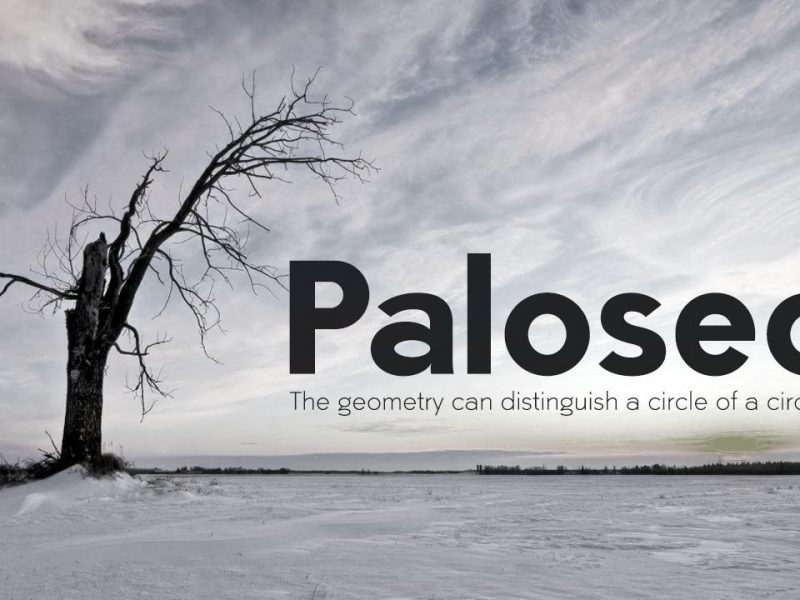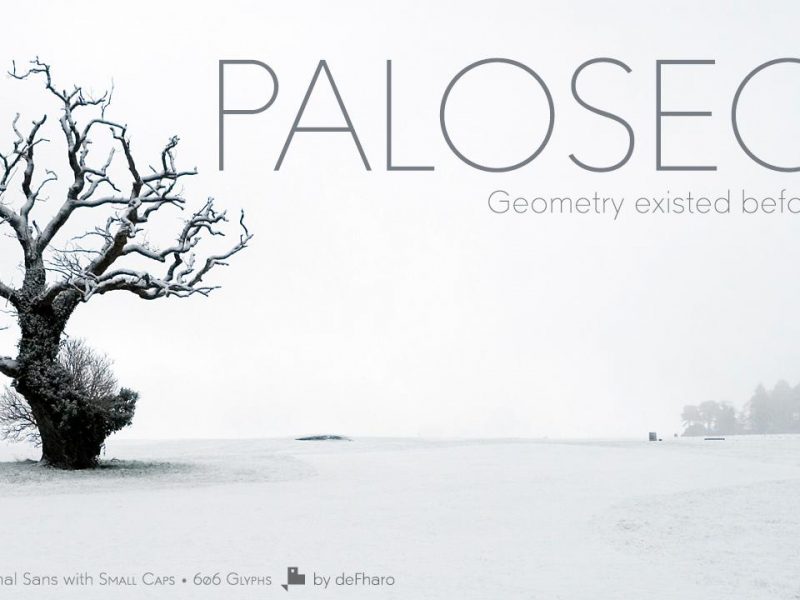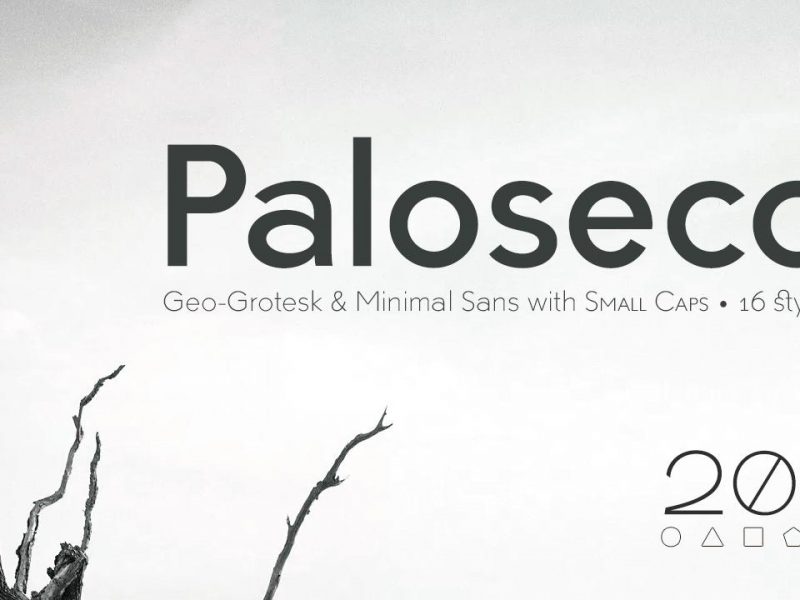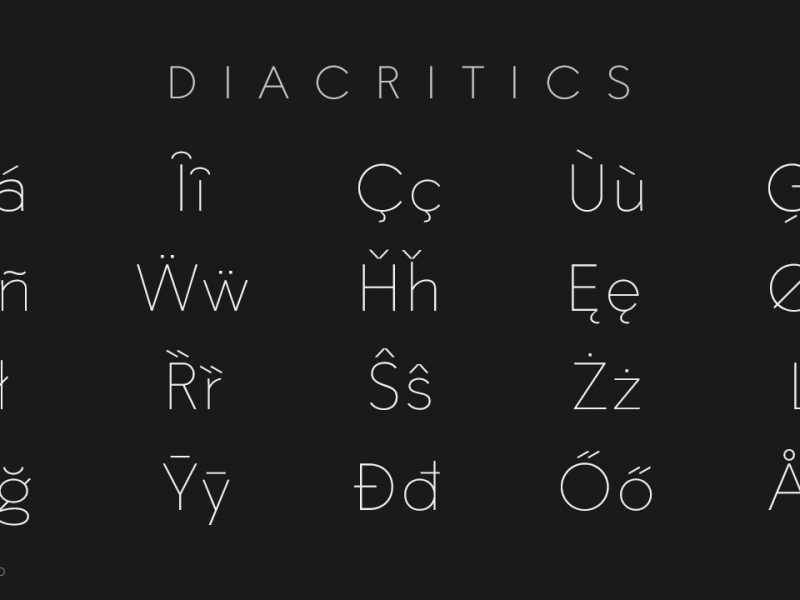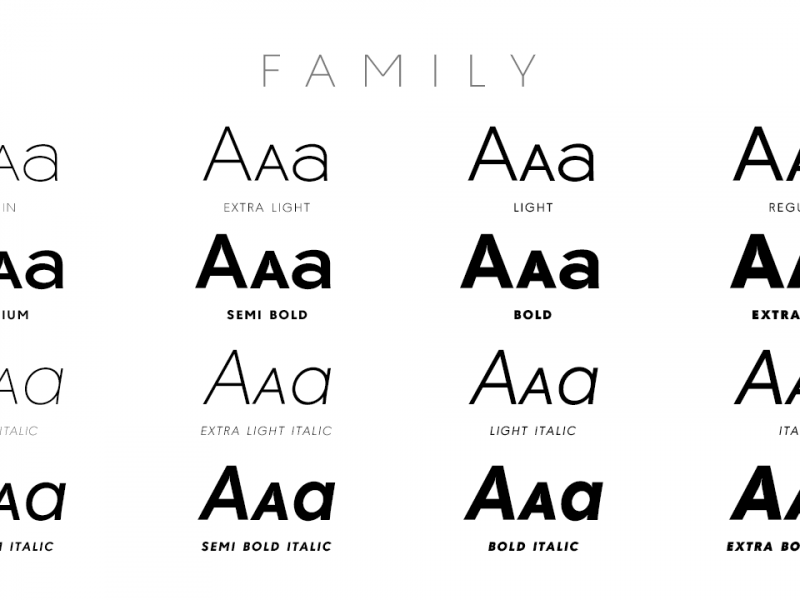
Paloseco Geo-Grotesk Font
Paloseco is a Sans Serif typographic family of Geo-Grotesque style with 8 pesos plus the italic versions all include small capital letters and cryptocurrency symbols.
It is a geometric, minimalist typography, with neo-grotesque modulations. The typeface has alternative letters and numbers, small caps and advanced OpenType functions. The proportions, metrics and kerning I have configured meticulously for a perfect reading in any size.